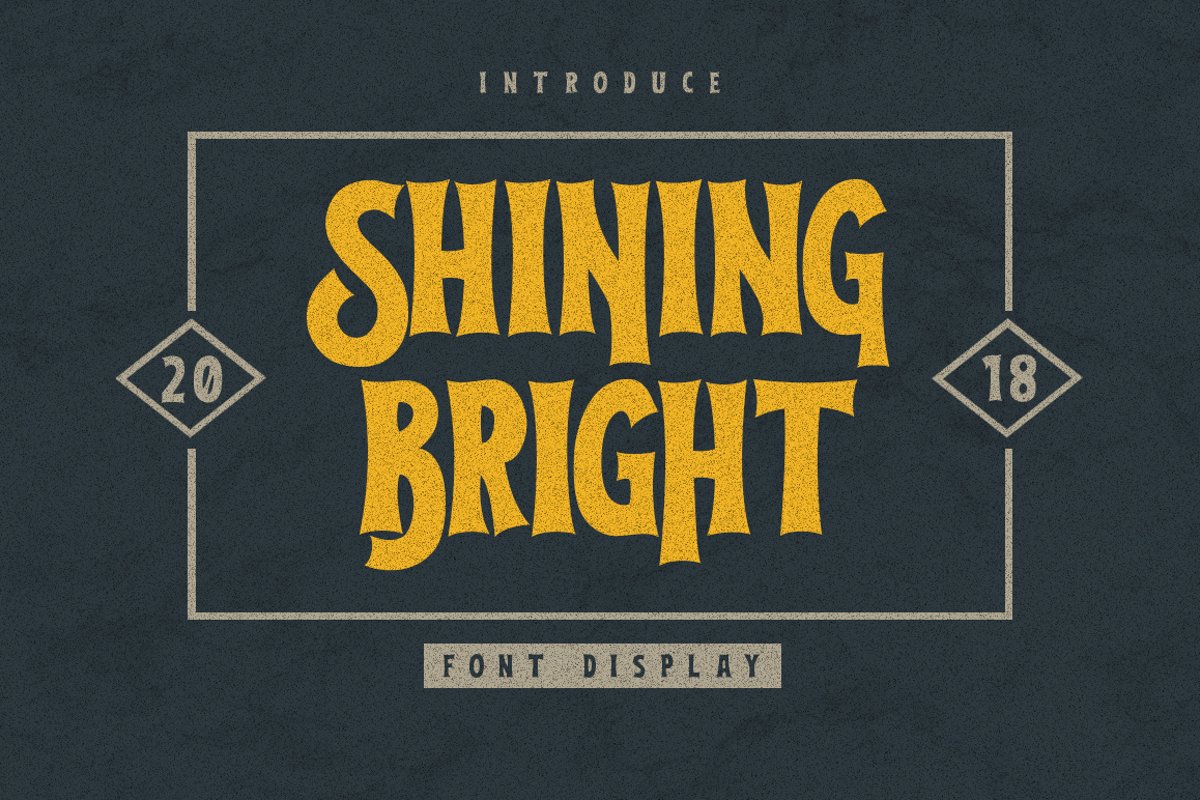
Shining Bright Typeface
Shining Bright
a Shining Bright Typeface is Display Font. Can make it easier to convey the message in your design. Use for awesome display, labeling, clothing, movie sceen, poster, movie title, gigs, album covers, logos, and much more.Include :